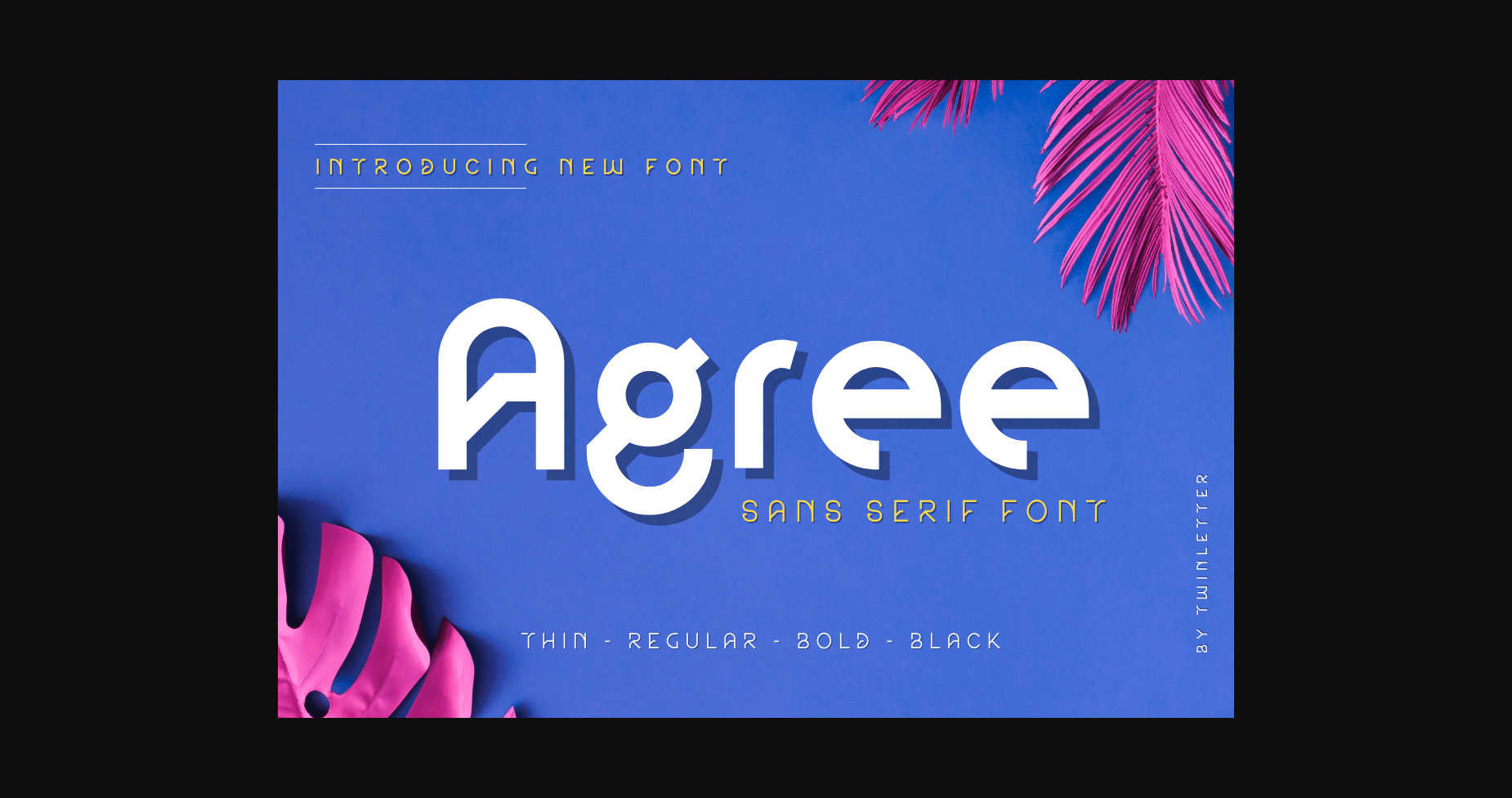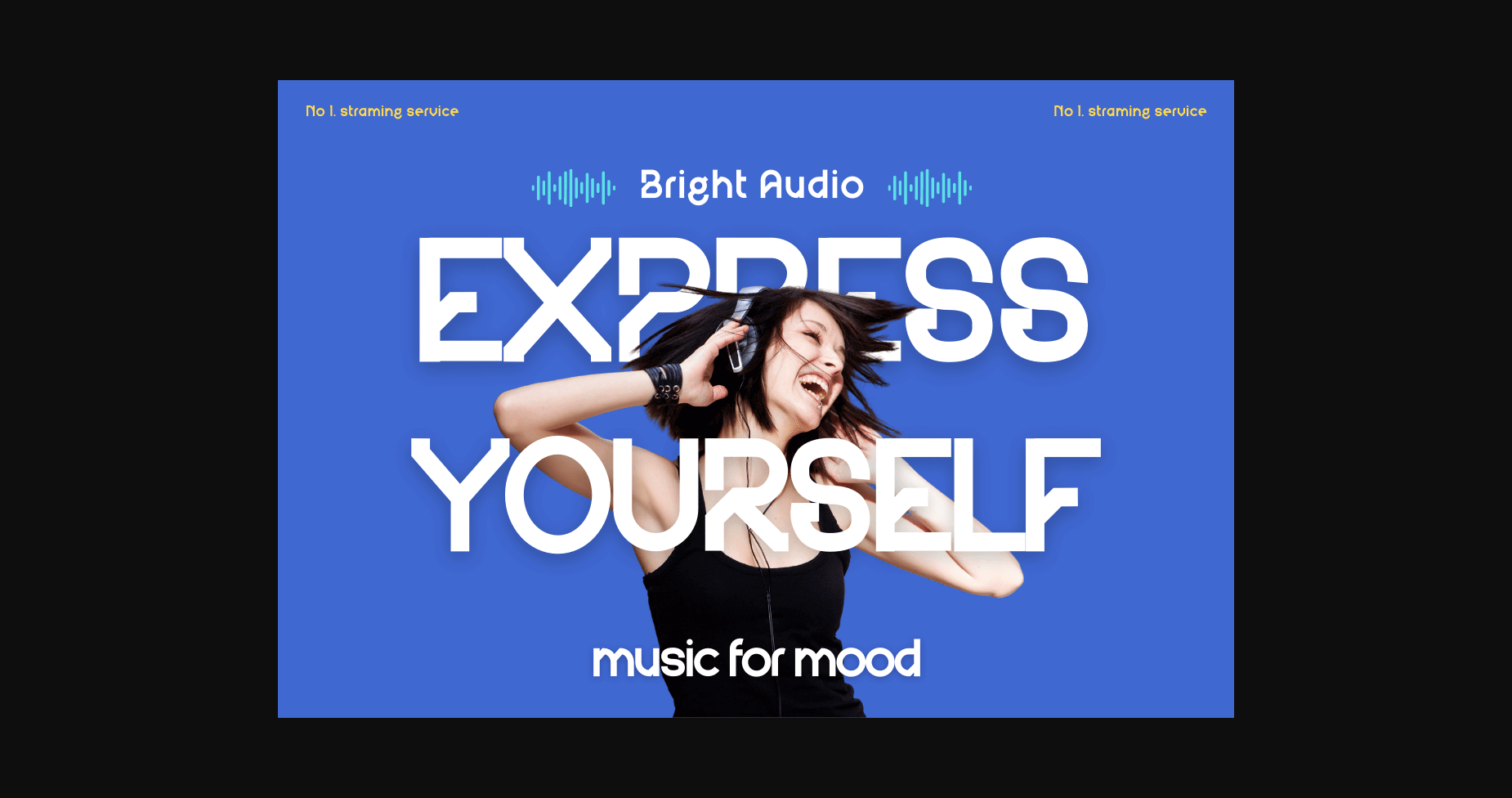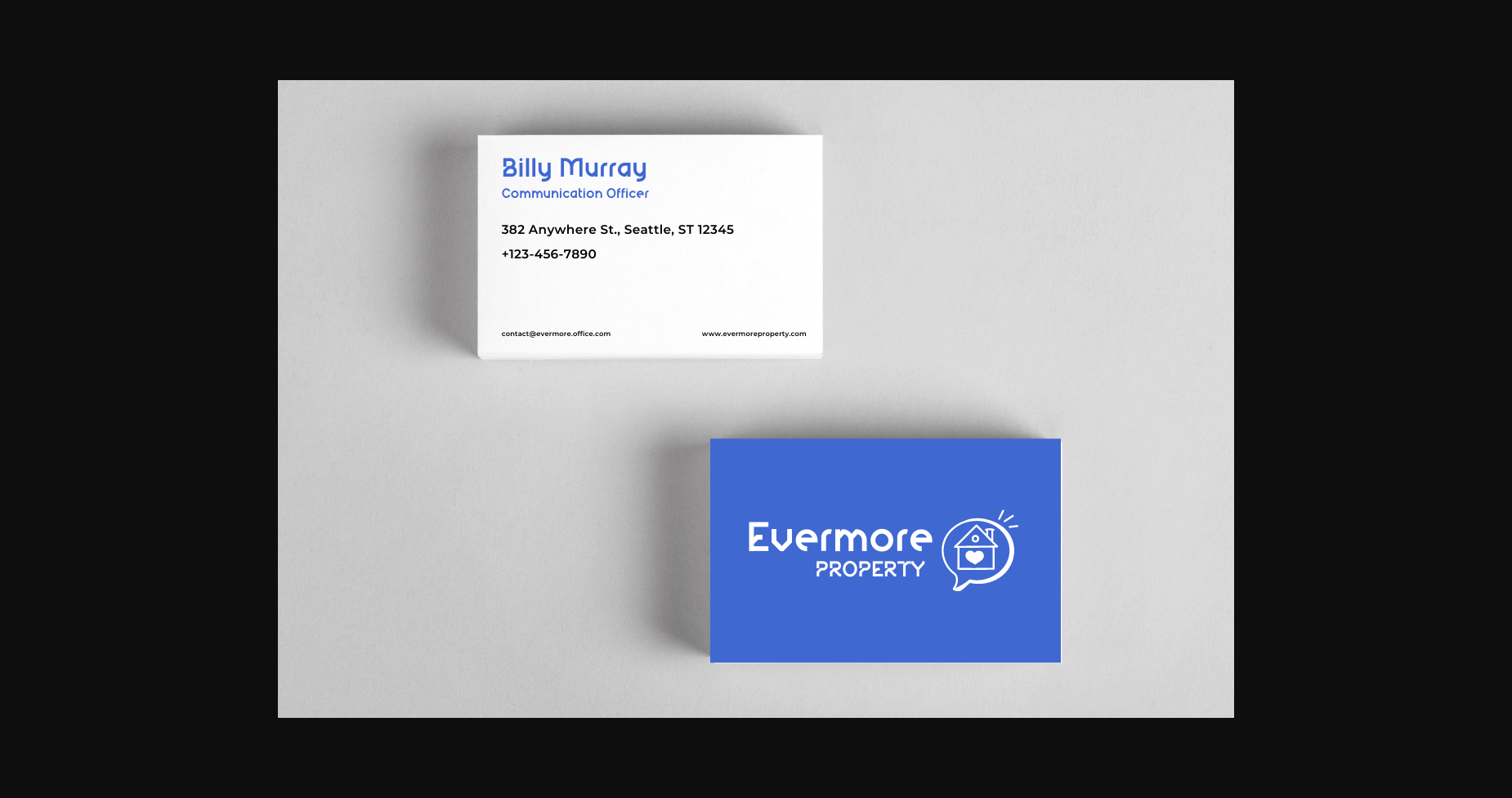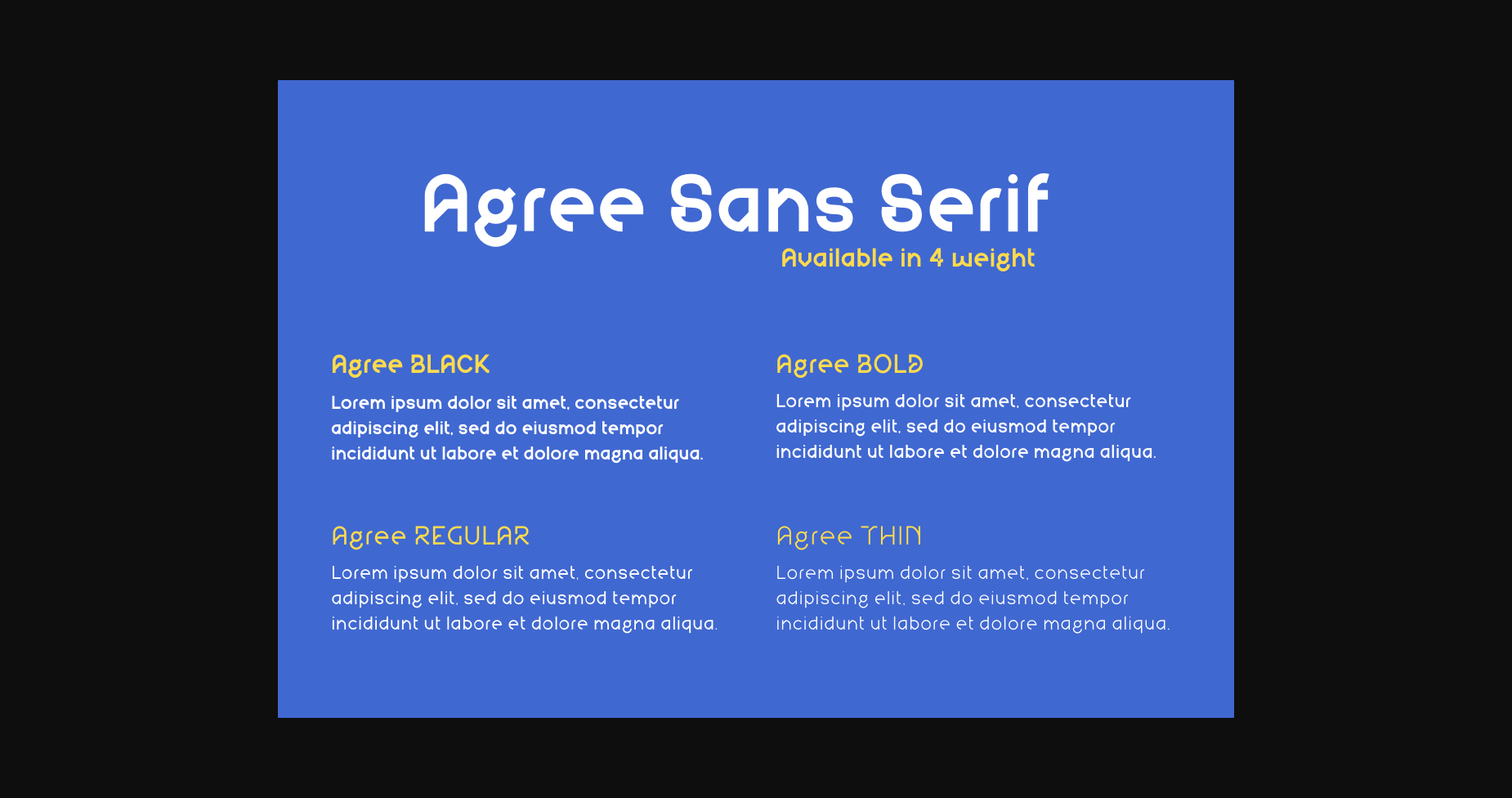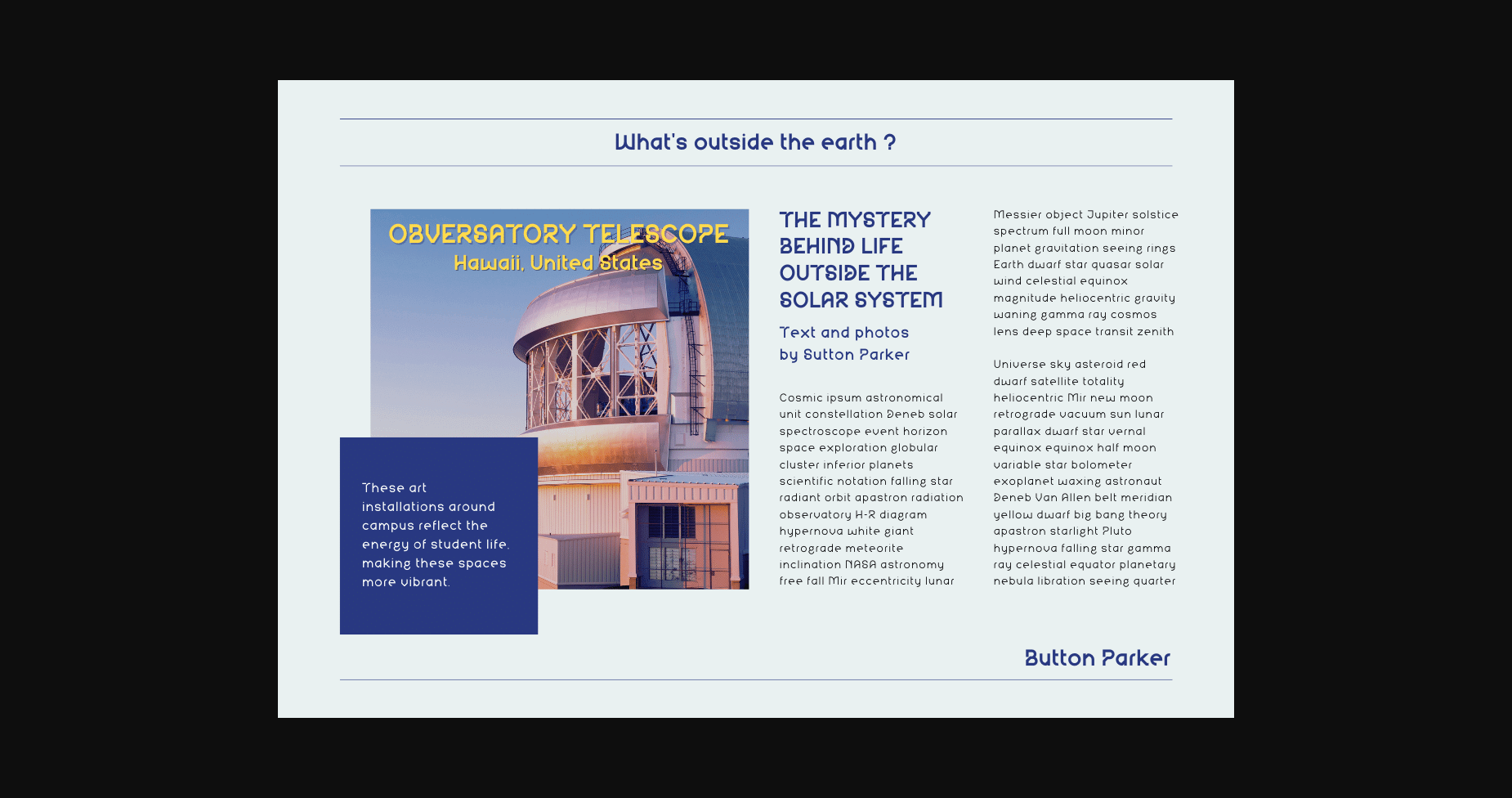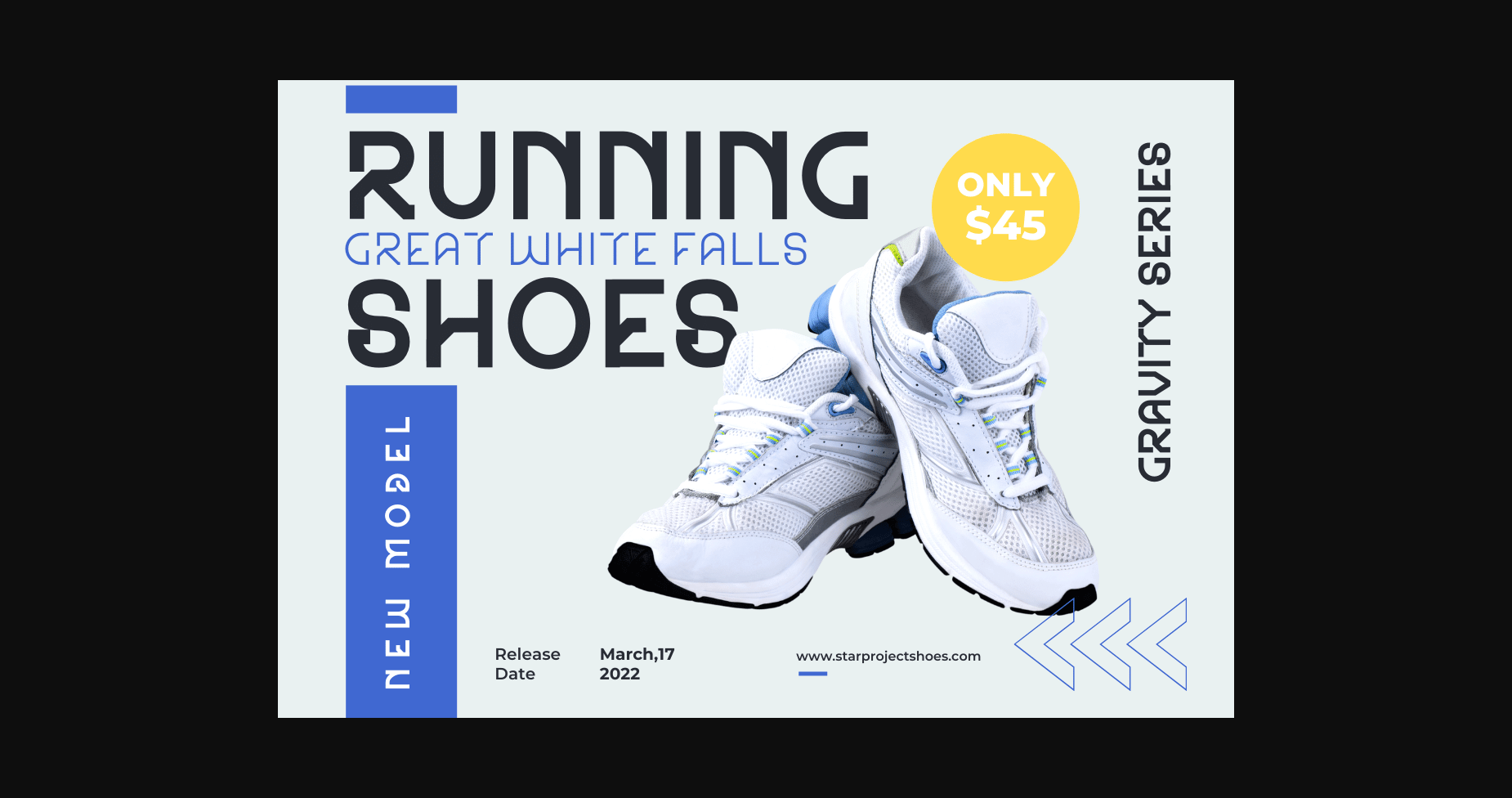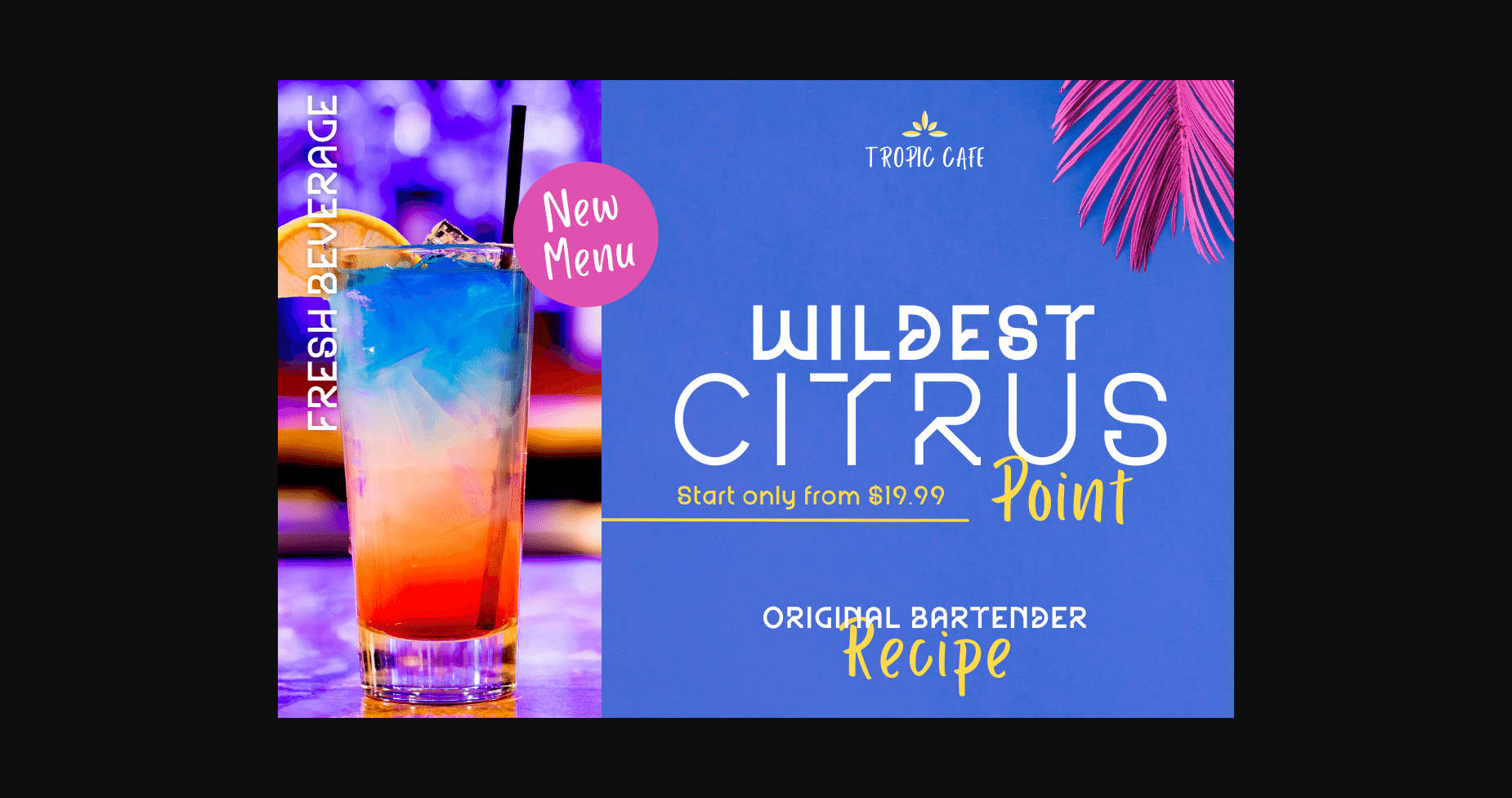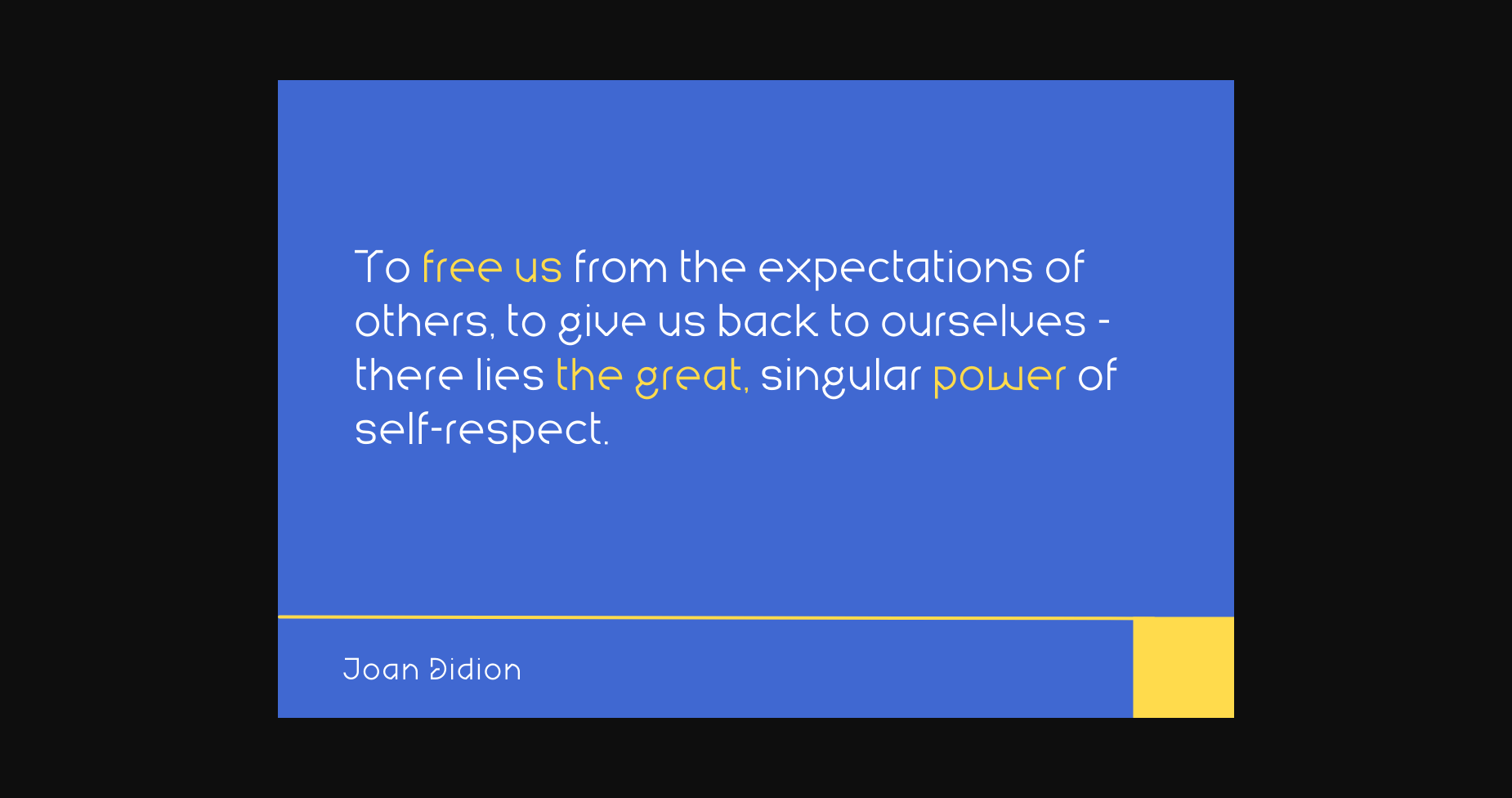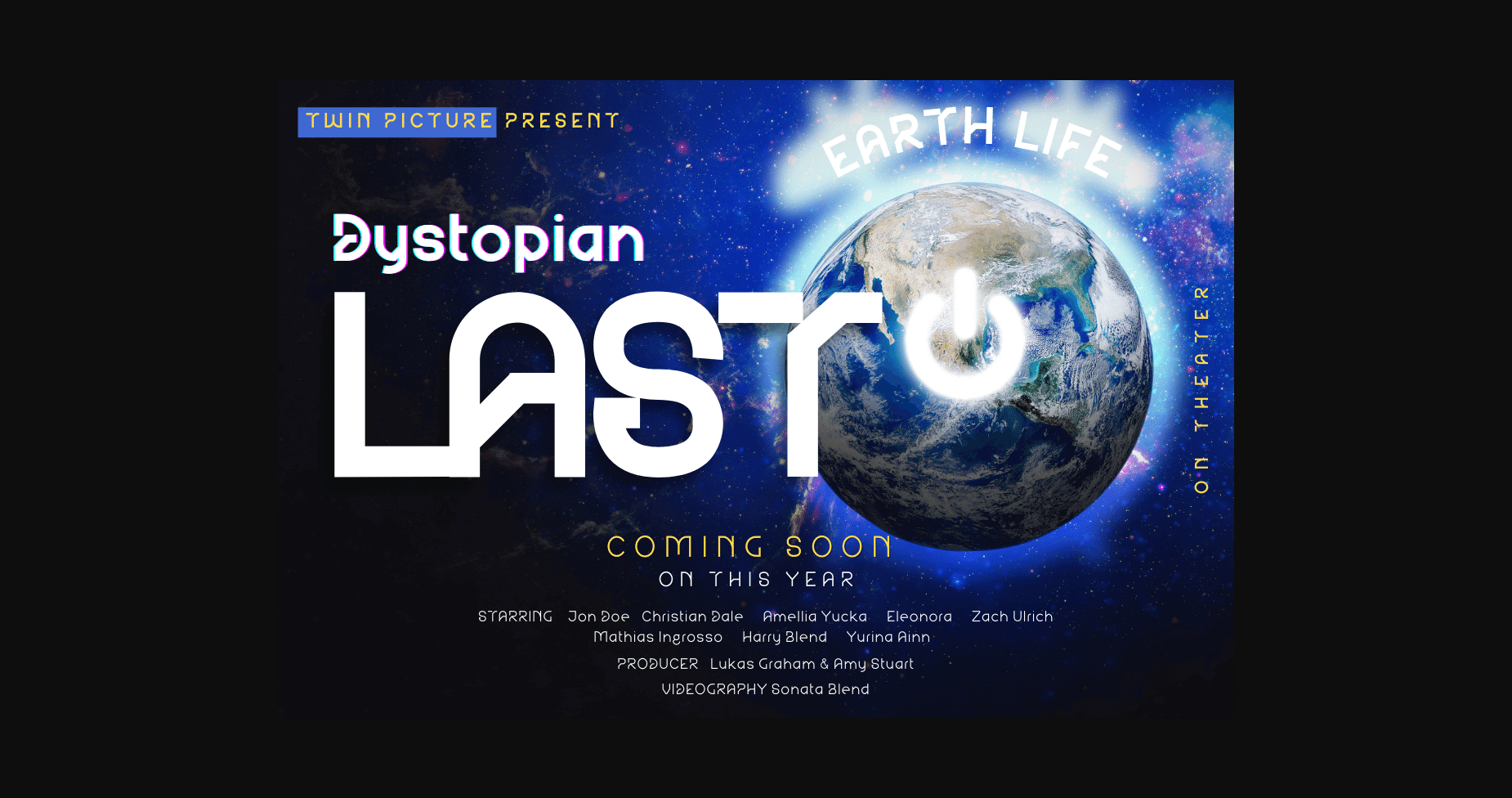
Agree Font
About Agree Font
Agree is a san serif font made with a more modern and unique shape than most other fonts. If you use this font in your project, the graphic appearance of your project will be perfect and unique, attracting the attention of many people. With this typeface, your work will be made easier because your design will stand out from the crowd!